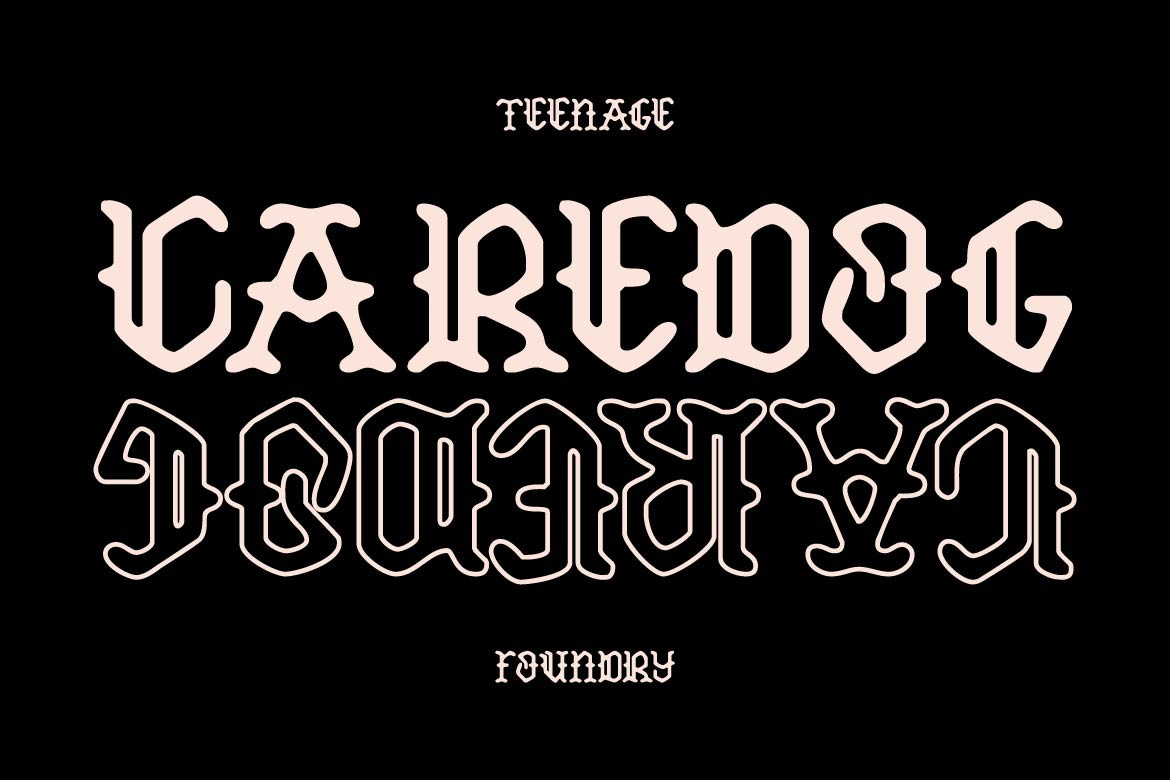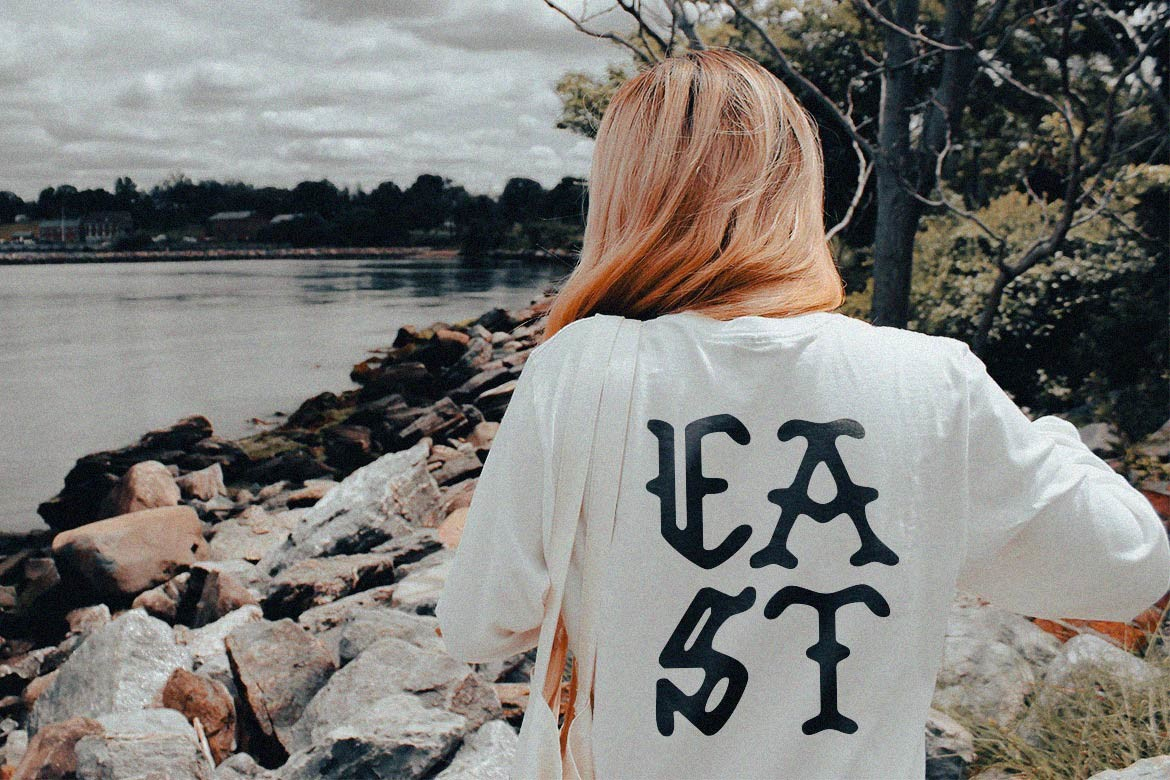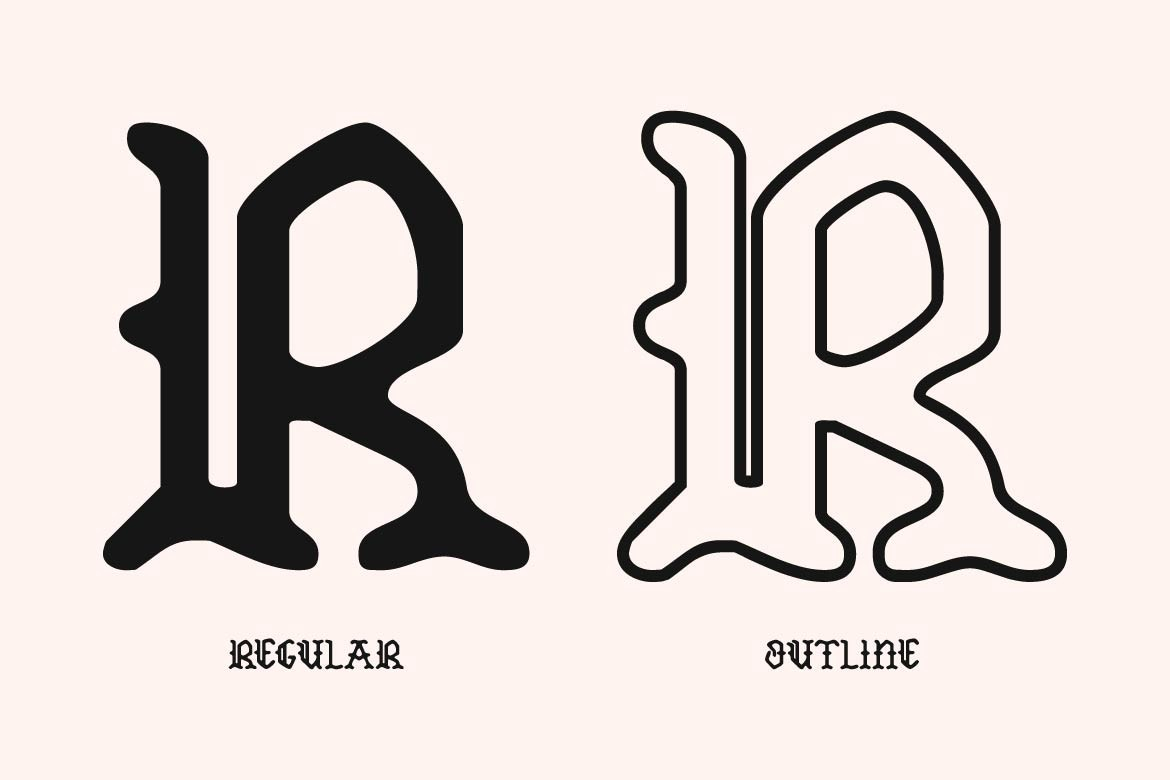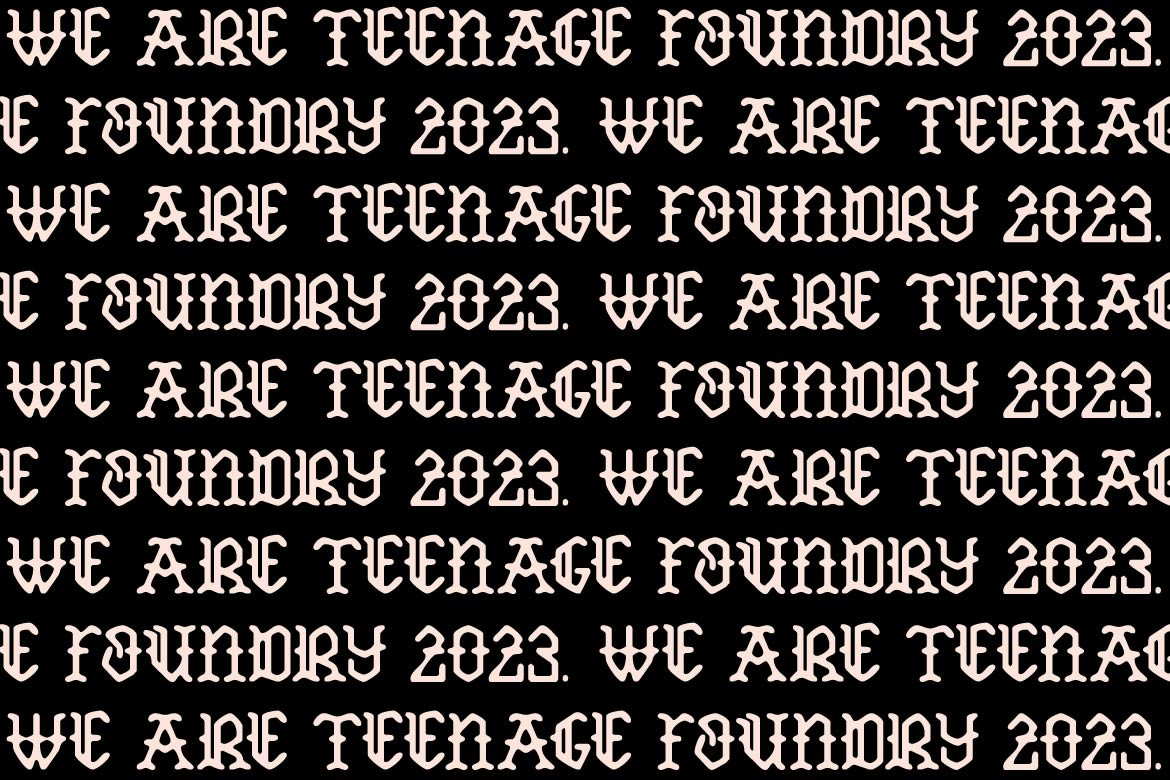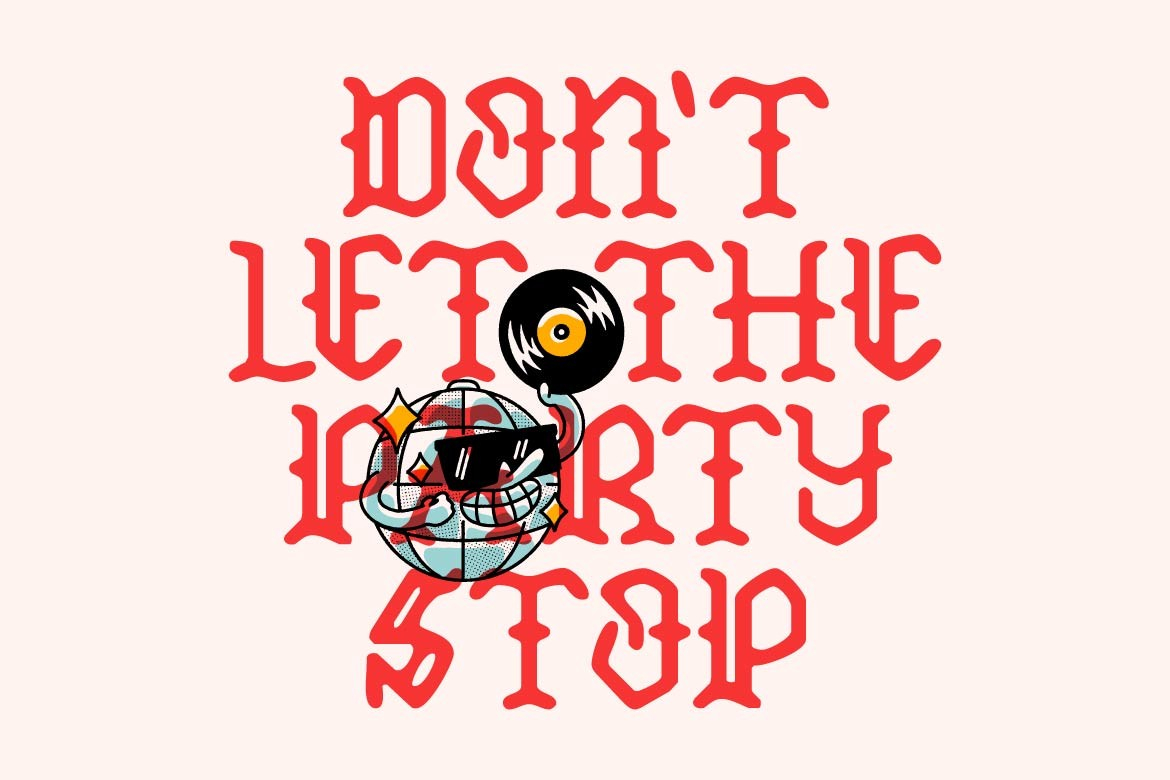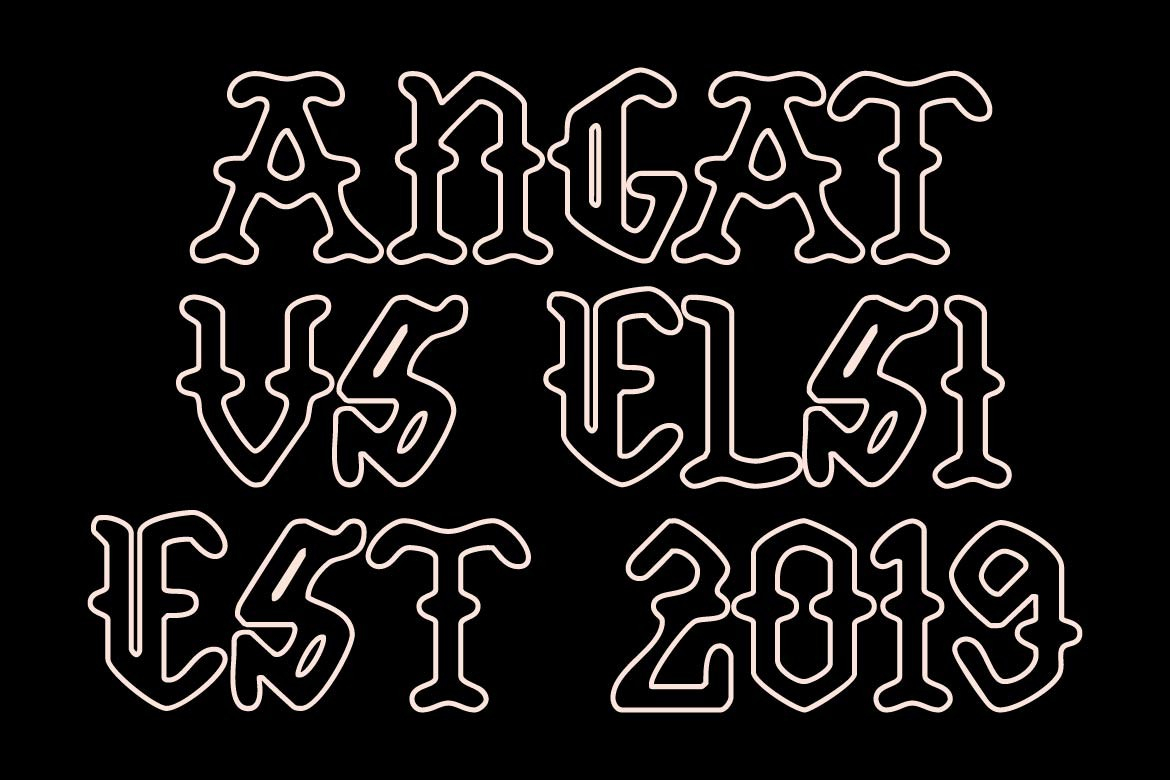
Caredog Font
About Caredog Font
Caredog is a blackletter font that’s powerful, and full of character! This font is perfect for anyone looking to make a statement with their designs and add a touch of fun to their projects.